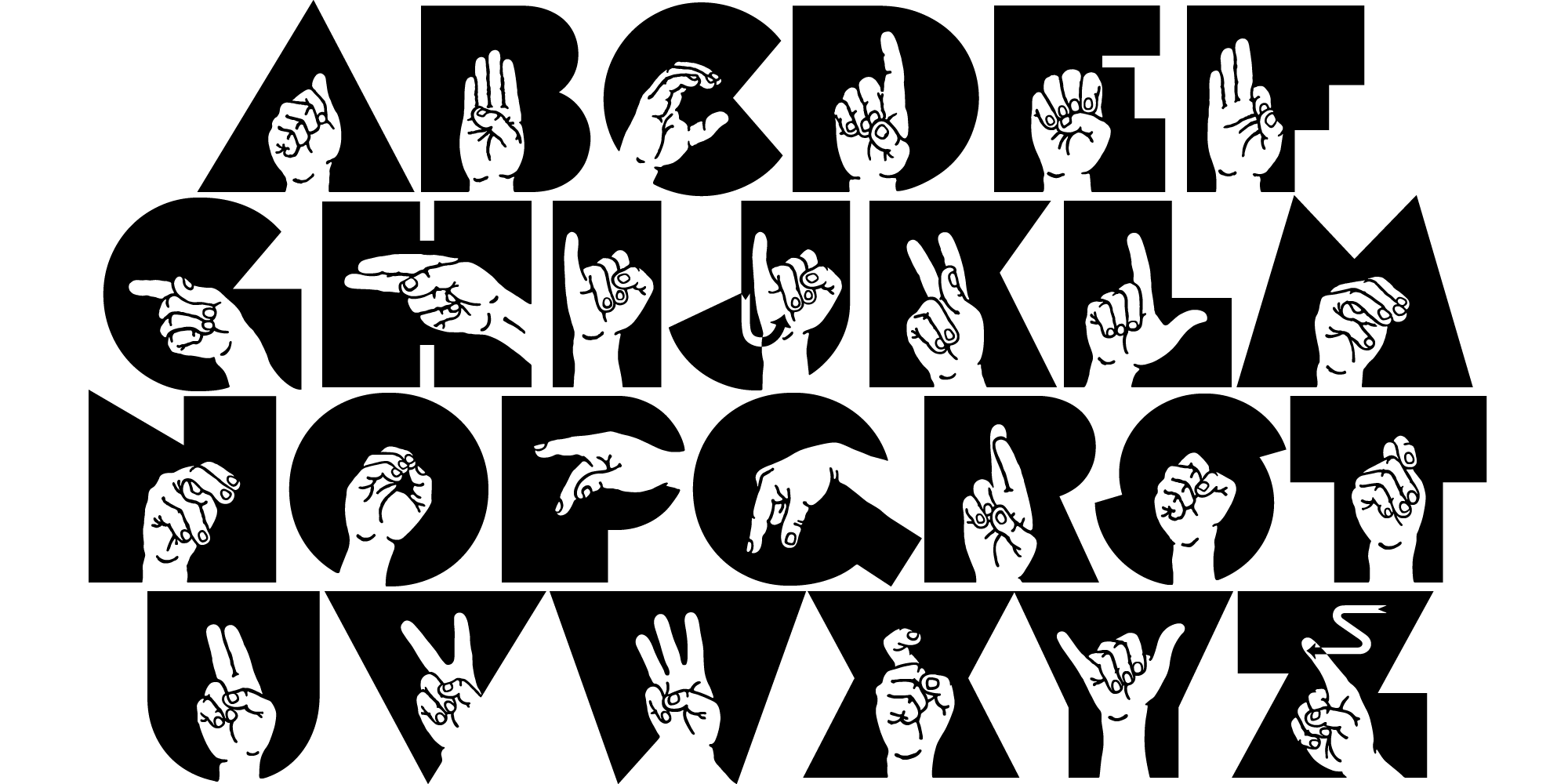
Looking to add a unique and highly specialized touch to your designs, particularly those focused on communication or education? FingerSpeller BF Font Free Download offers an intriguing opportunity to explore a font designed for a distinct purpose. It's crucial to remember, however, that while a FingerSpeller BF Font Free Download might be available for personal or educational testing, a commercial license is required for any professional applications, widely distributed materials, or projects that generate revenue. This ensures legal compliance and provides essential support to the talented font designers.
The FingerSpeller BF Font is exceptionally well-suited for projects that involve the visual representation of fingerspelling, particularly for teaching or educational purposes. Its design directly illustrates handshapes corresponding to letters, making it an excellent choice for educational materials for the deaf or hard of hearing, sign language learning aids, and assistive technology interfaces. It's ideal for specialized textbooks, instructional posters, and visual guides that aim to facilitate communication through fingerspelling. Furthermore, consider FingerSpeller BF Font for inclusion-focused branding, educational app development, and any project that seeks to bridge communication gaps or promote sign language literacy.
What makes the FingerSpeller BF Font so exciting is its direct utility and its profound ability to facilitate communication. It transforms abstract letters into clear, recognizable hand gestures, making complex information accessible and engaging. This characteristic allows it to communicate a sense of empathy, education, and direct understanding, making your message resonate with genuine purpose and impact. It’s a font that doesn't just display text; it teaches a language, adding a layer of functional artistry and invaluable accessibility to any creative endeavor. Its distinctive and purposeful aesthetic ensures your work will stand out with clarity and social relevance.
The FingerSpeller BF Font family typically focuses on delivering its core functional design effectively. You'll often find a well-crafted Regular weight, with each character meticulously designed to represent a specific fingerspelled letter. Due to its specialized nature, the family might also include specific alternates for different hand positions or directional indicators if applicable, providing comprehensive tools for accurately depicting fingerspelling sequences. Its primary focus is on clear and accurate representation, ensuring maximum educational utility.